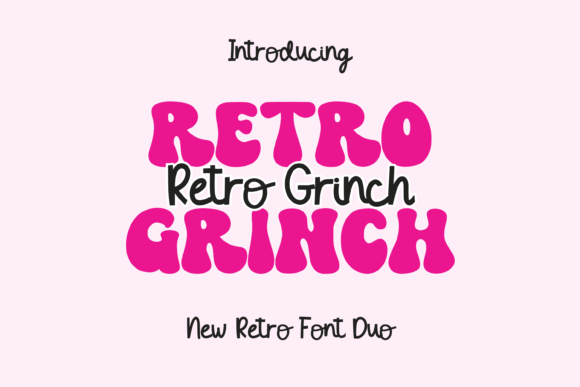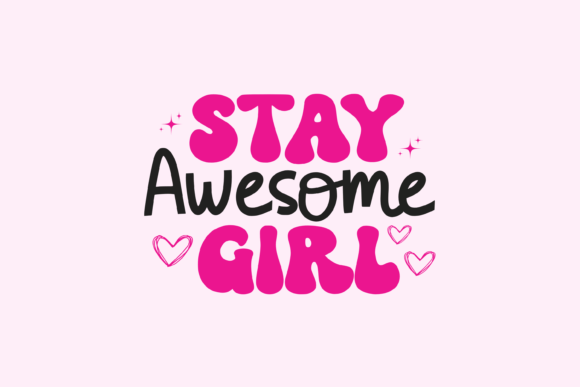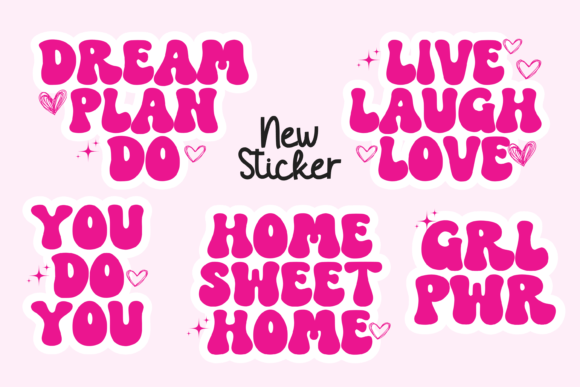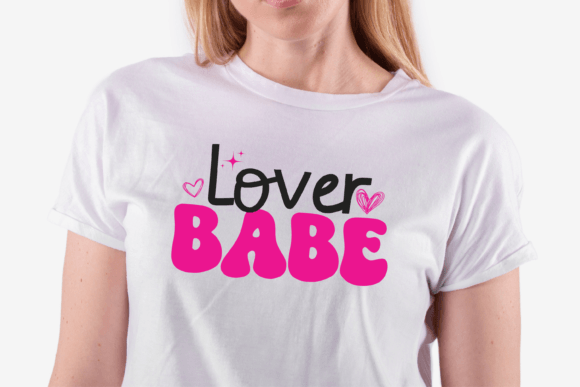
Retro Grinch Font
About the Retro Grinch Font
Get ready to be inspired by Retro Grinch Font, a fresh and dynamic typeface for modern creators. Retro Grinch is a cool retro duo font (display script and Groovy). Great for quotes Christmas typography, quote retro typography, t-shirts, tote bags, greeting cards, mugs, and any design that needs a fun look.
Retro Grinch excels as a display font for headlines, short slogans, and eye-catching titles. Its playful nature makes it ideal for projects targeting a younger demographic or those with a fun, nostalgic vibe. Consider it for branding related to vintage toys, holiday-themed products, or quirky apparel. Avoid using it for body text or lengthy paragraphs; its unique character is best showcased in short, impactful bursts.
Pairing Retro Grinch with a clean sans-serif like Open Sans for body text creates a balanced contrast, allowing the display font to shine. For a more retro feel, consider pairing it with a geometric sans-serif such as Futura. A simple serif like Playfair Display could also work for supporting text if a more sophisticated look is desired.
The font’s core personality is undeniably playful and nostalgic, evoking a sense of fun and lightheartedness. Its retro style lends itself well to projects emphasizing a sense of whimsy and vintage charm.